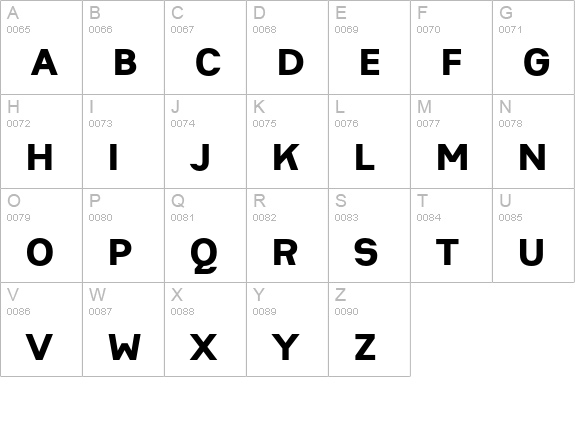
HeimatSans-ExtraBold is an extra-heavy, attention-grabbing variant in the HeimatSans typeface family \xE2\x80\x94 well suited to high-impact headlines, posters, and bold branding.
HeimatSans-ExtraBold is a bold and powerful typeface that exudes confidence and strength. Its thick strokes and clean lines make it perfect for making a bold statement in design projects that require a strong and impactful font. Whether you're designing a poster, logo, or heading, HeimatSans-ExtraBold will ensure that your message is seen and heard loud and clear. The best part? HeimatSans-ExtraBold is available for free download at FontsMarket.com. This means that you can add this versatile and eye-catching font to your collection without breaking the bank. Don't miss out on the opportunity to enhance your designs with the commanding presence of HeimatSans-ExtraBold. Download it today and watch your projects come to life with style and flair.